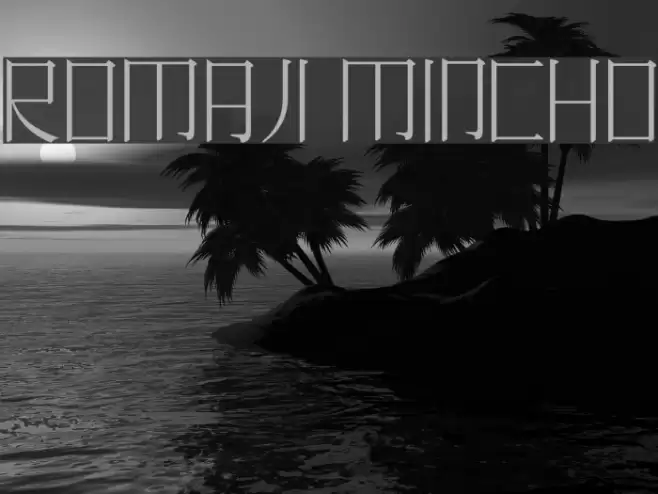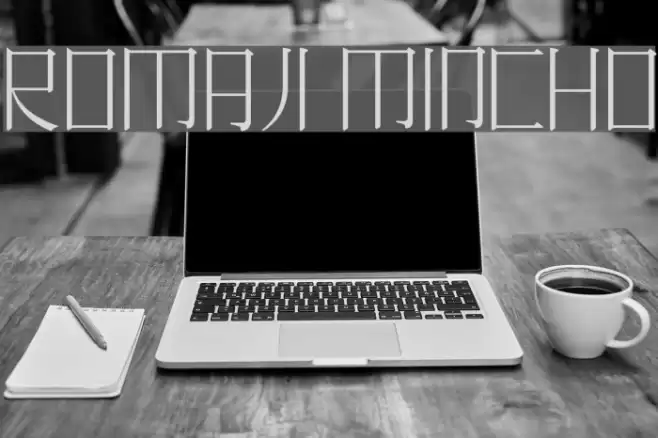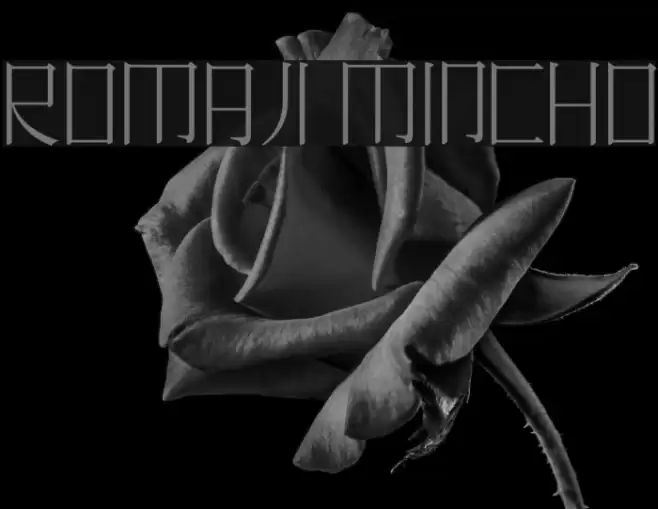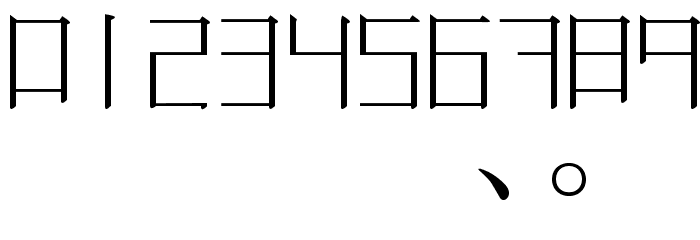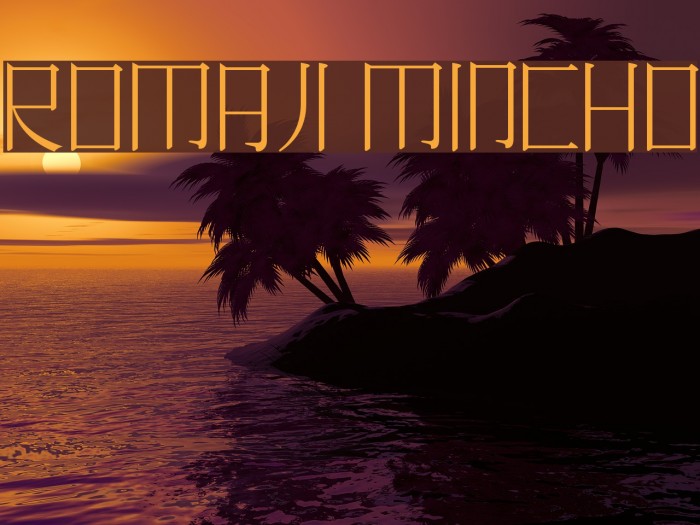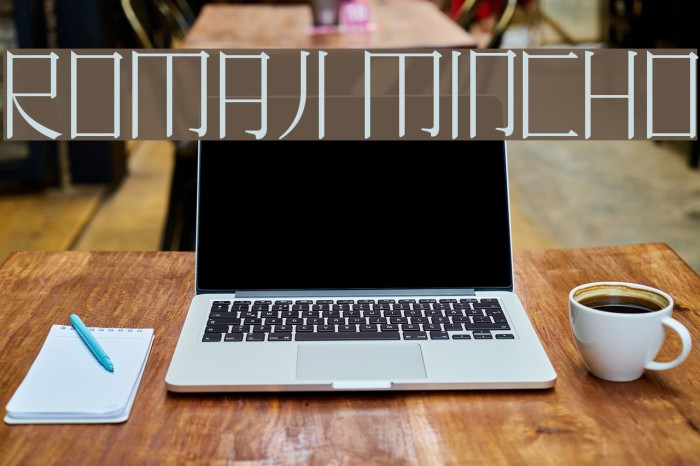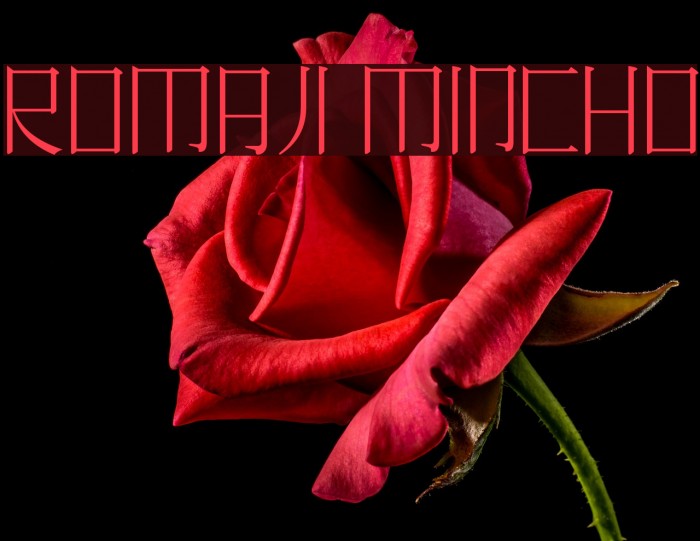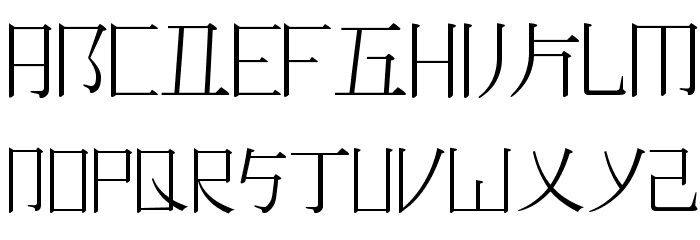
Romaji Mincho Font
Romaji Mincho Description
This font features a unique blend of geometric and calligraphic elements, creating a striking visual impact. The characters are constructed with sharp, angular lines and subtle curves, giving them a modern yet traditional feel. The uppercase letters are particularly distinctive, with elongated verticals and horizontal strokes that create a sense of elegance and sophistication. The lowercase letters maintain a consistent style, complementing the uppercase with their own angular forms. The numerals are designed with a similar aesthetic, ensuring a cohesive look across all characters. This font's distinctive style makes it ideal for projects that require a bold and artistic touch.
A geometric and calligraphic font with sharp, angular lines and subtle curves from Farsi fonts.
- Proposed Projects: Ideal for branding, posters, and artistic projects that require a bold and unique typeface.